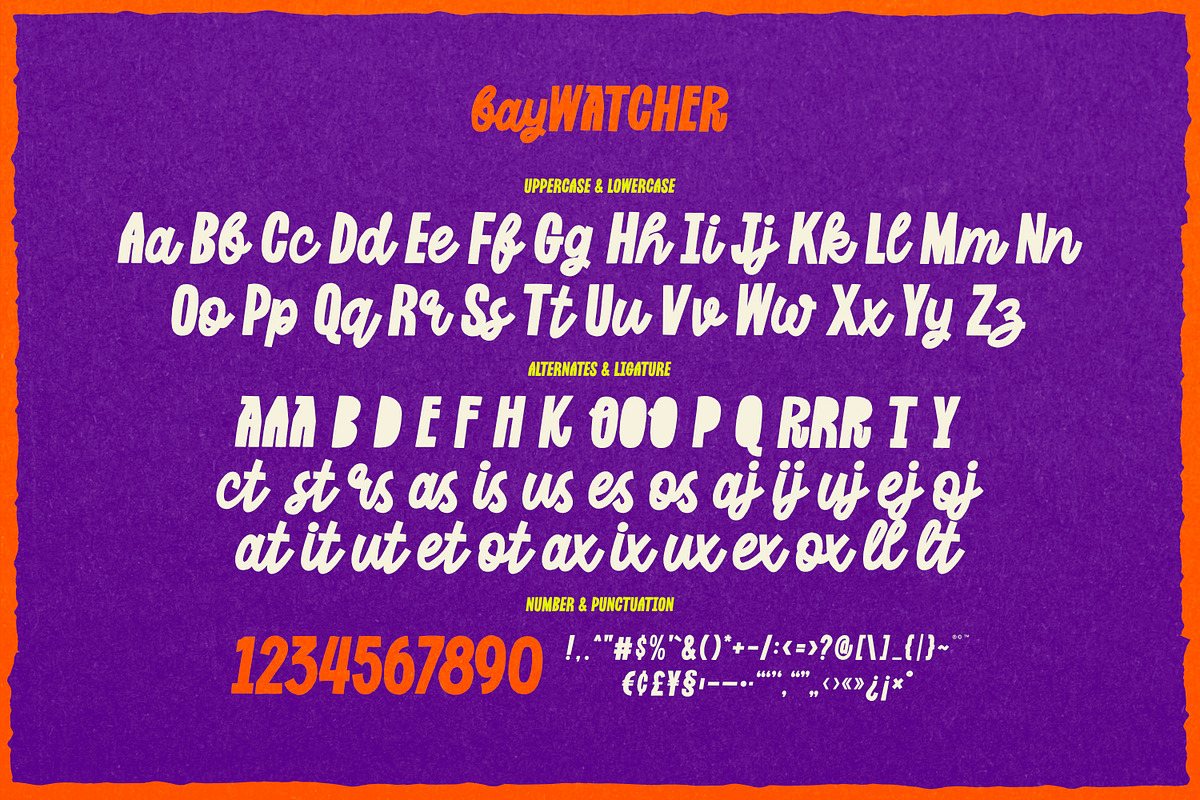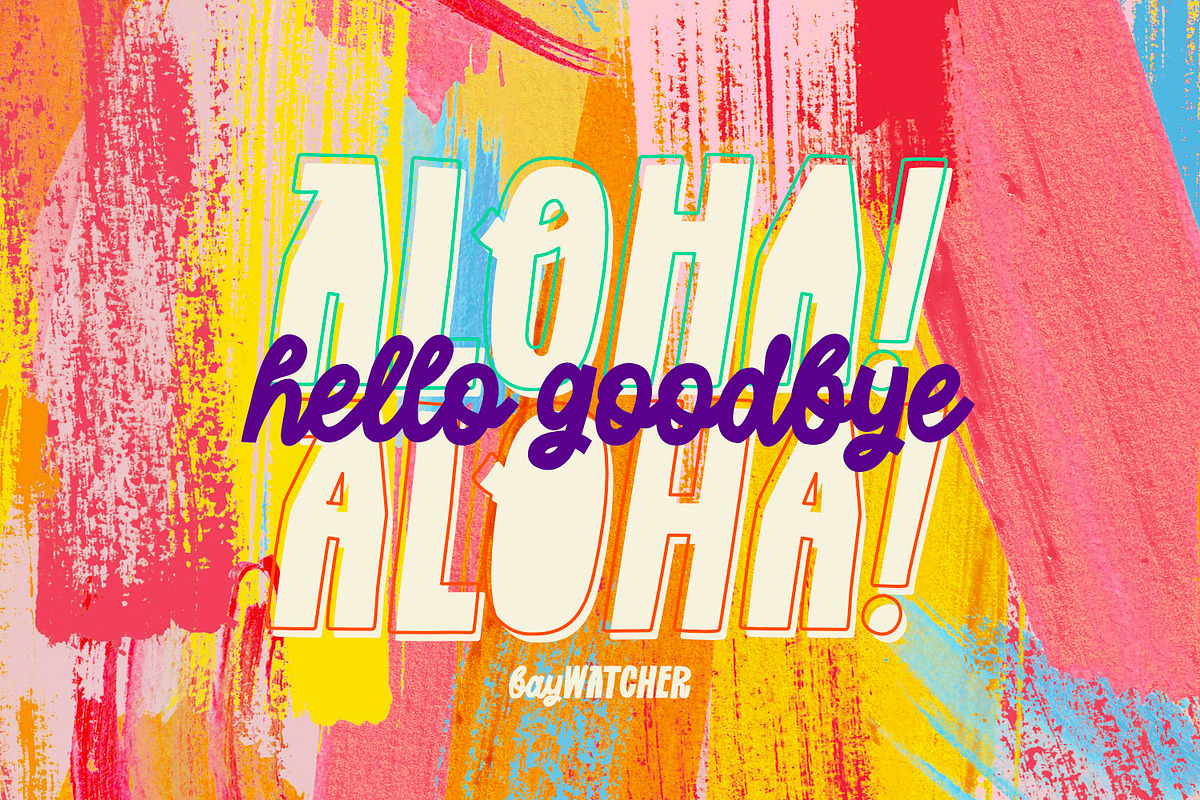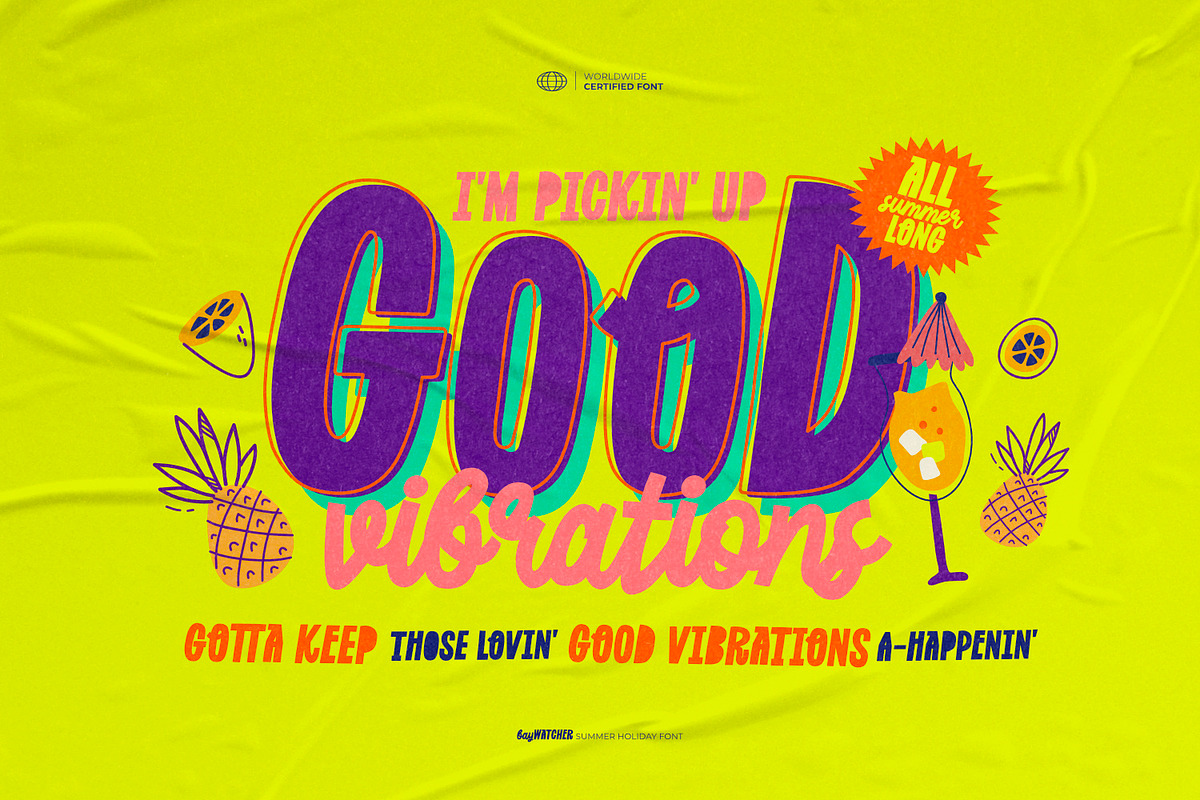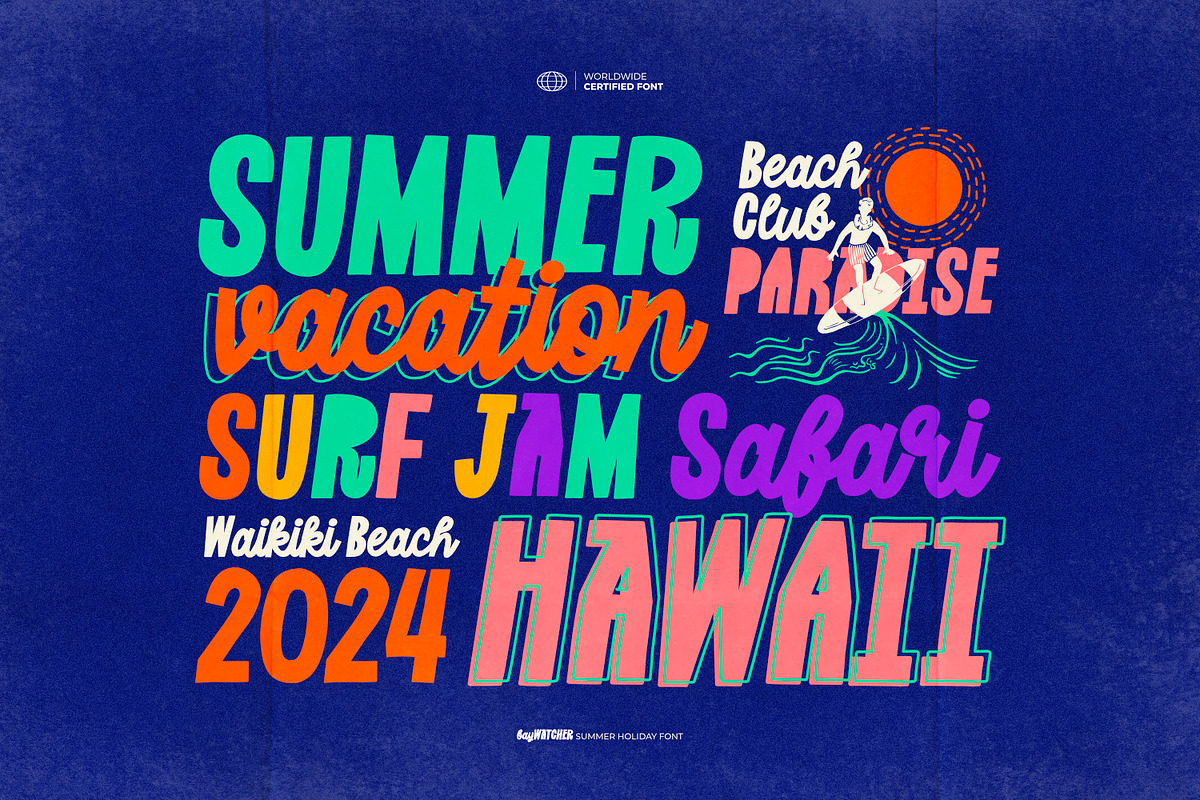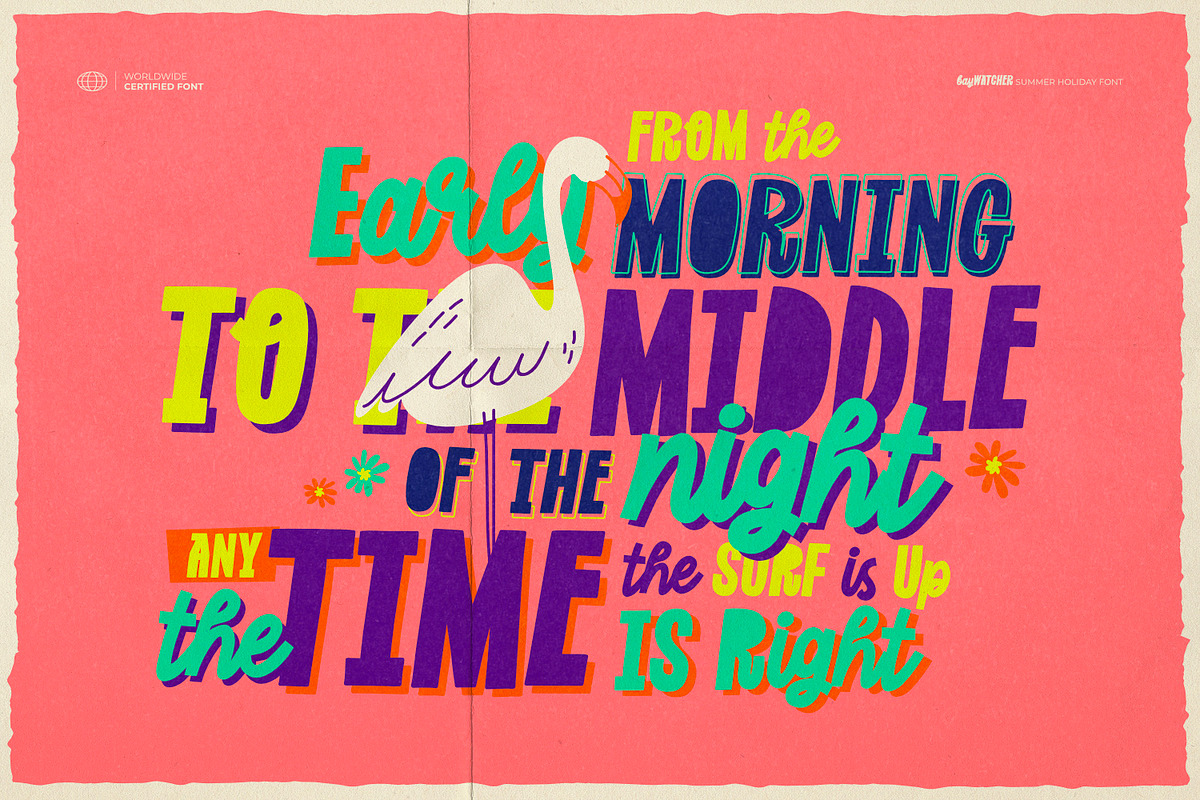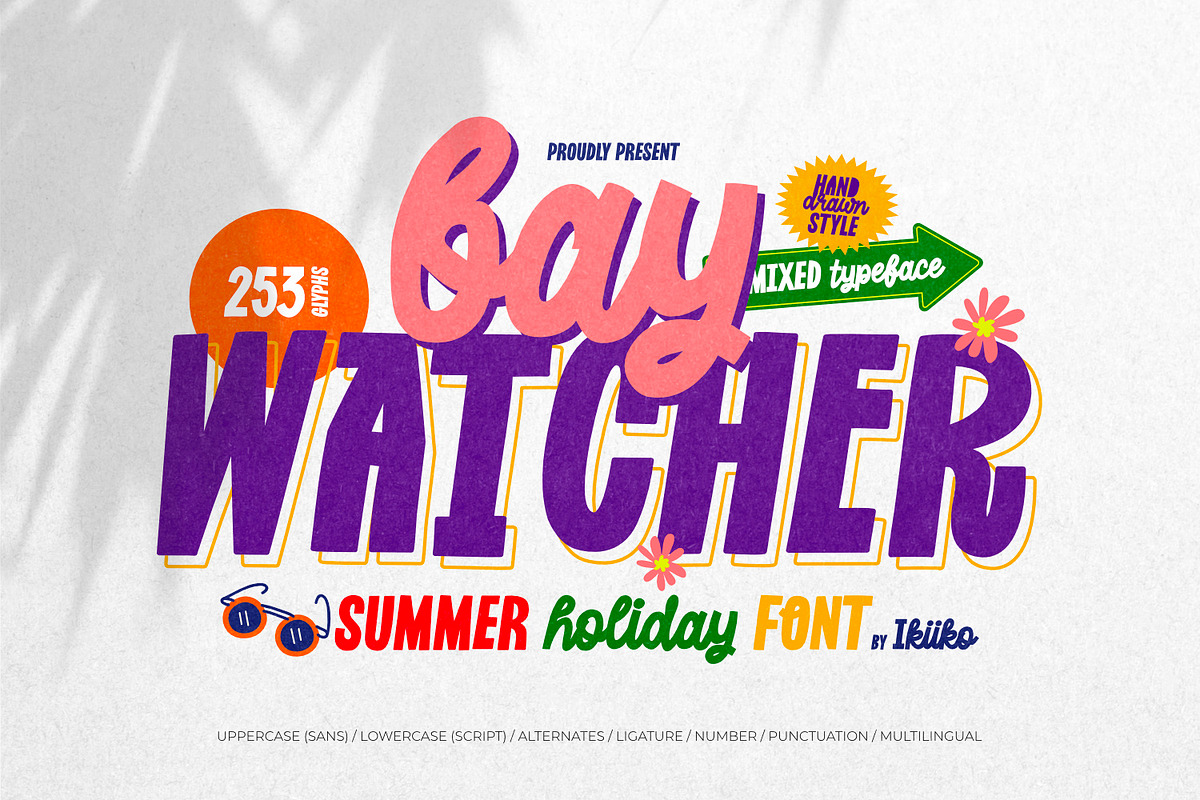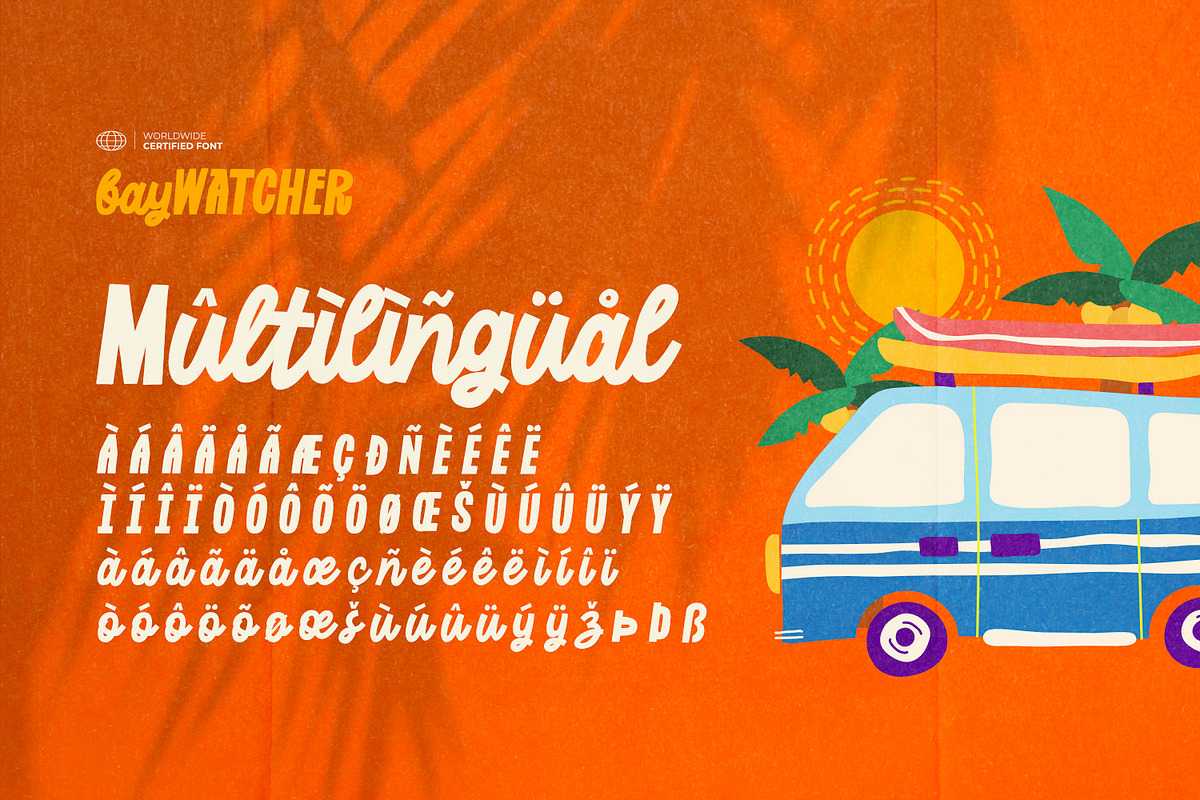
Bay Watcher - Summer Holiday Font
Proudly present Bay Watcher - Summer Holiday Font, created by ikiiko
Bay Watcher is a fun, pop-style font perfect for your summer creations! This hand-drawn font blends a playful sans serif uppercase with a cute script-style lowercase, giving your designs a fresh and happy vibe. Whether you're designing for a beach party, holiday event, or fancy summer getaway, Bay Watcher captures the essence of carefree days filled with sunshine and fun. Its whimsical, fancy lettering makes it ideal for projects that need a cute and joyful touch, evoking the warmth of summer and the excitement of holiday adventures. Perfect for creating logos, posters, and all things beachy!
This font is very suitable for making a holiday greetings, journal design, kids games, poster event, magazine layout, packaging, food & beverages, quotes, or simply as a stylish text overlay to any background image.
- Alternates & Ligature